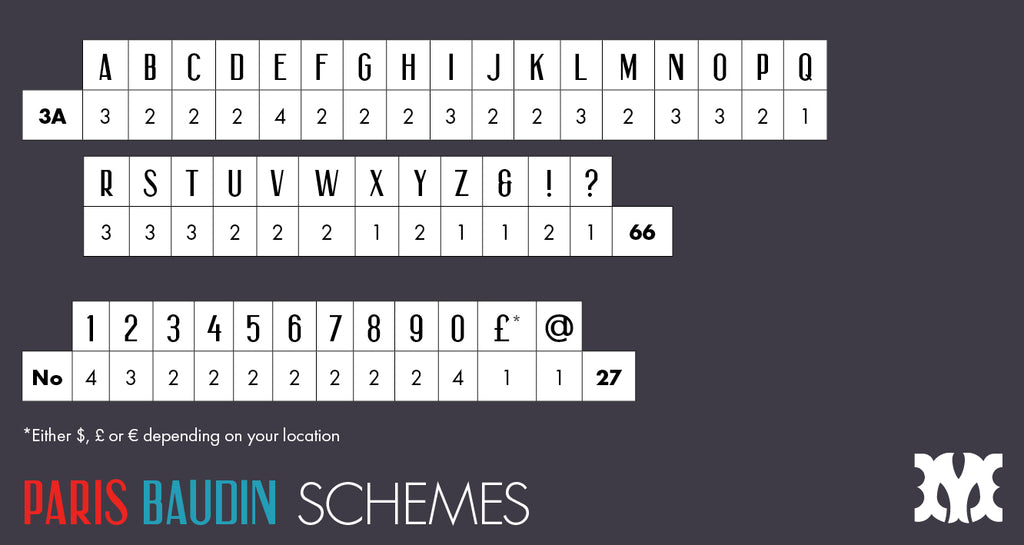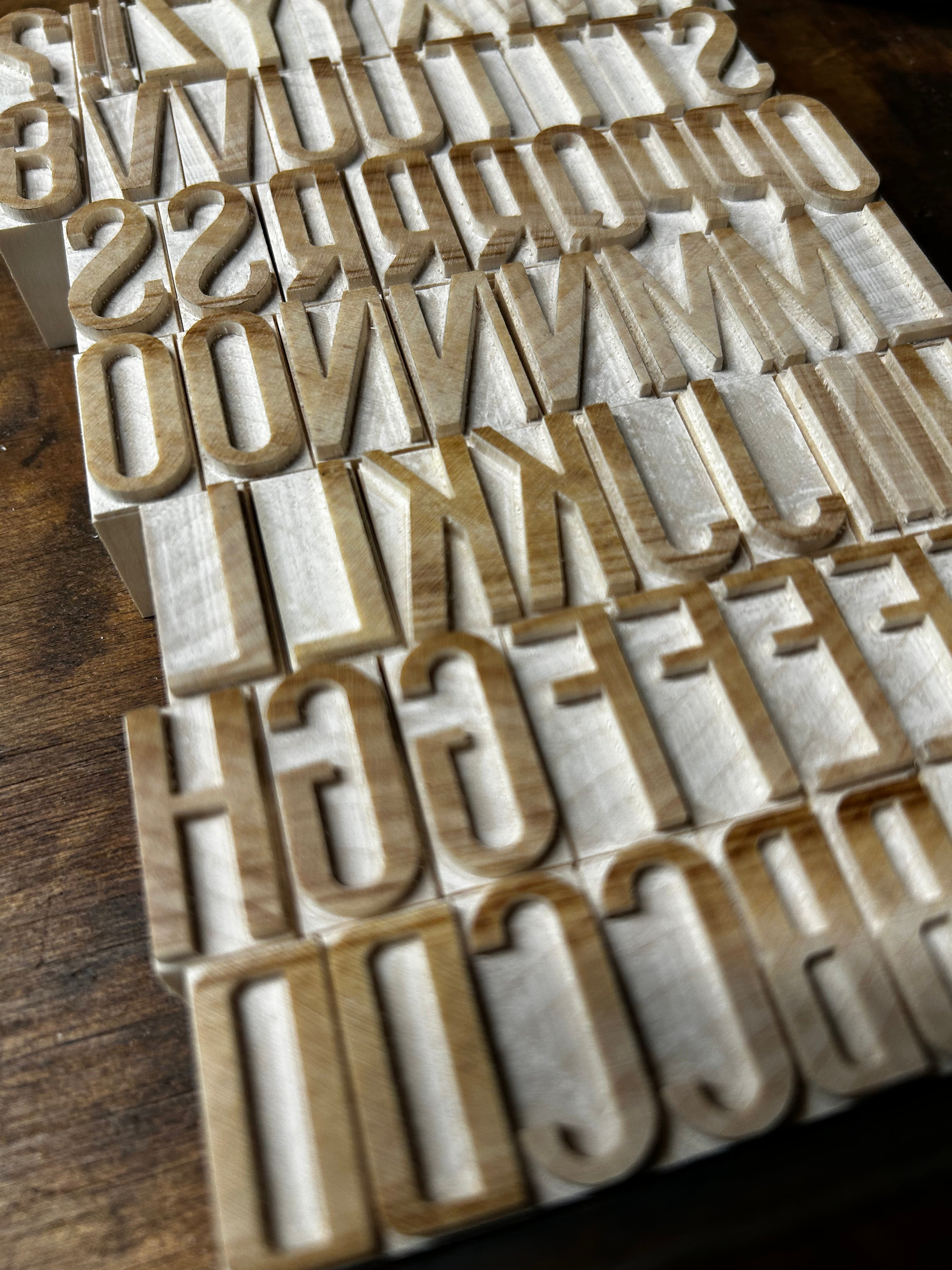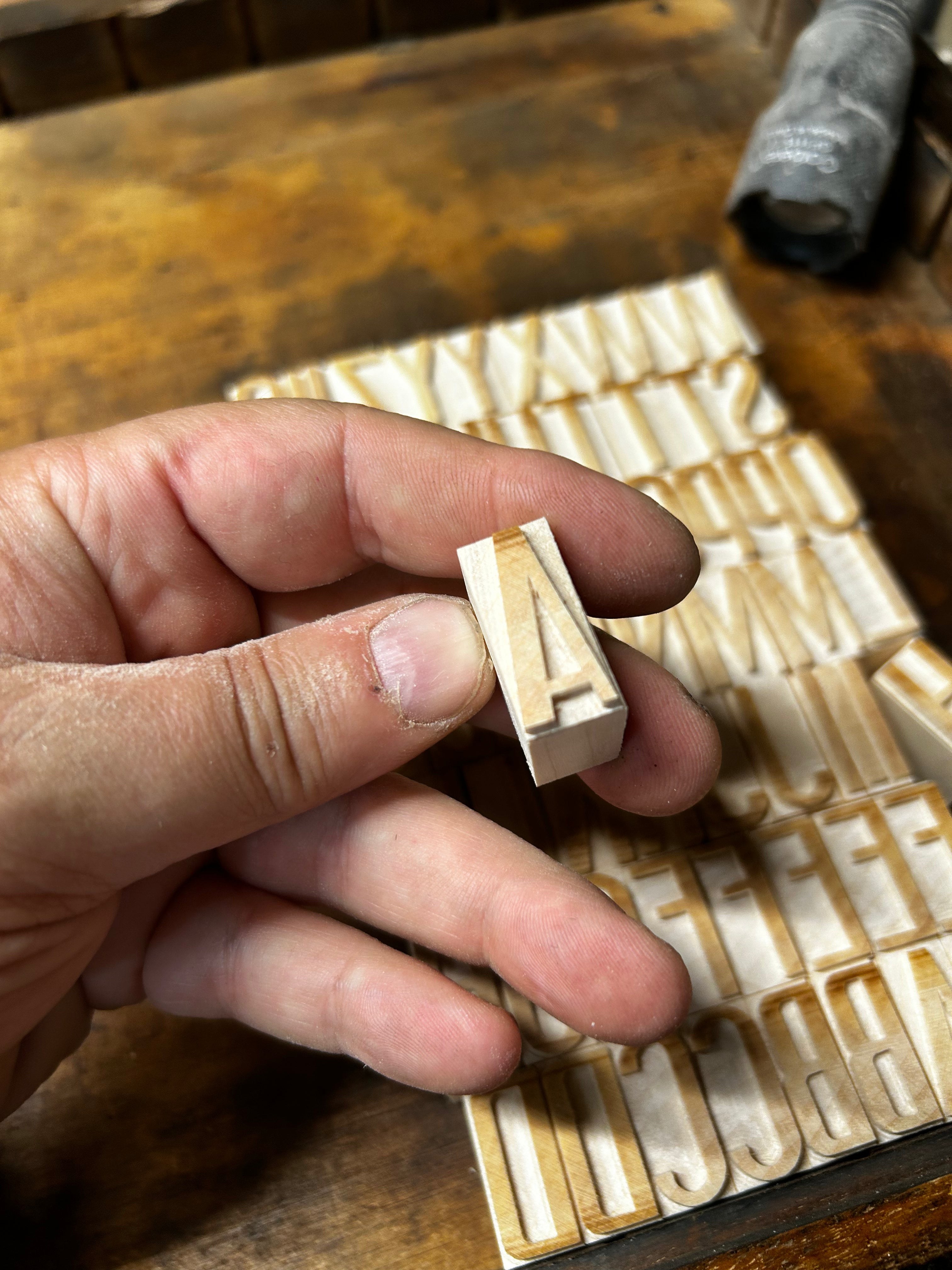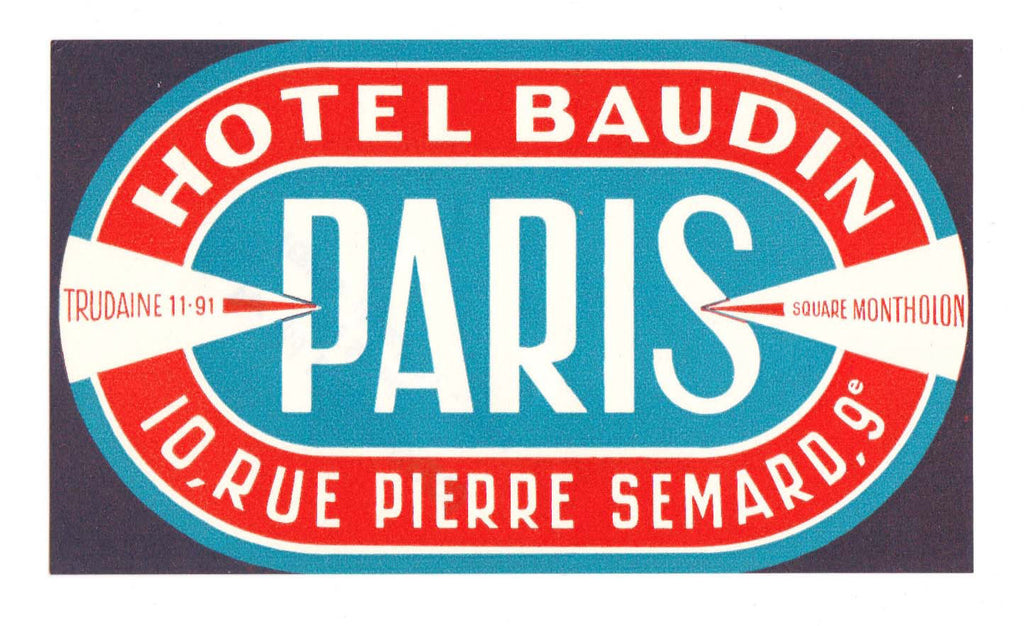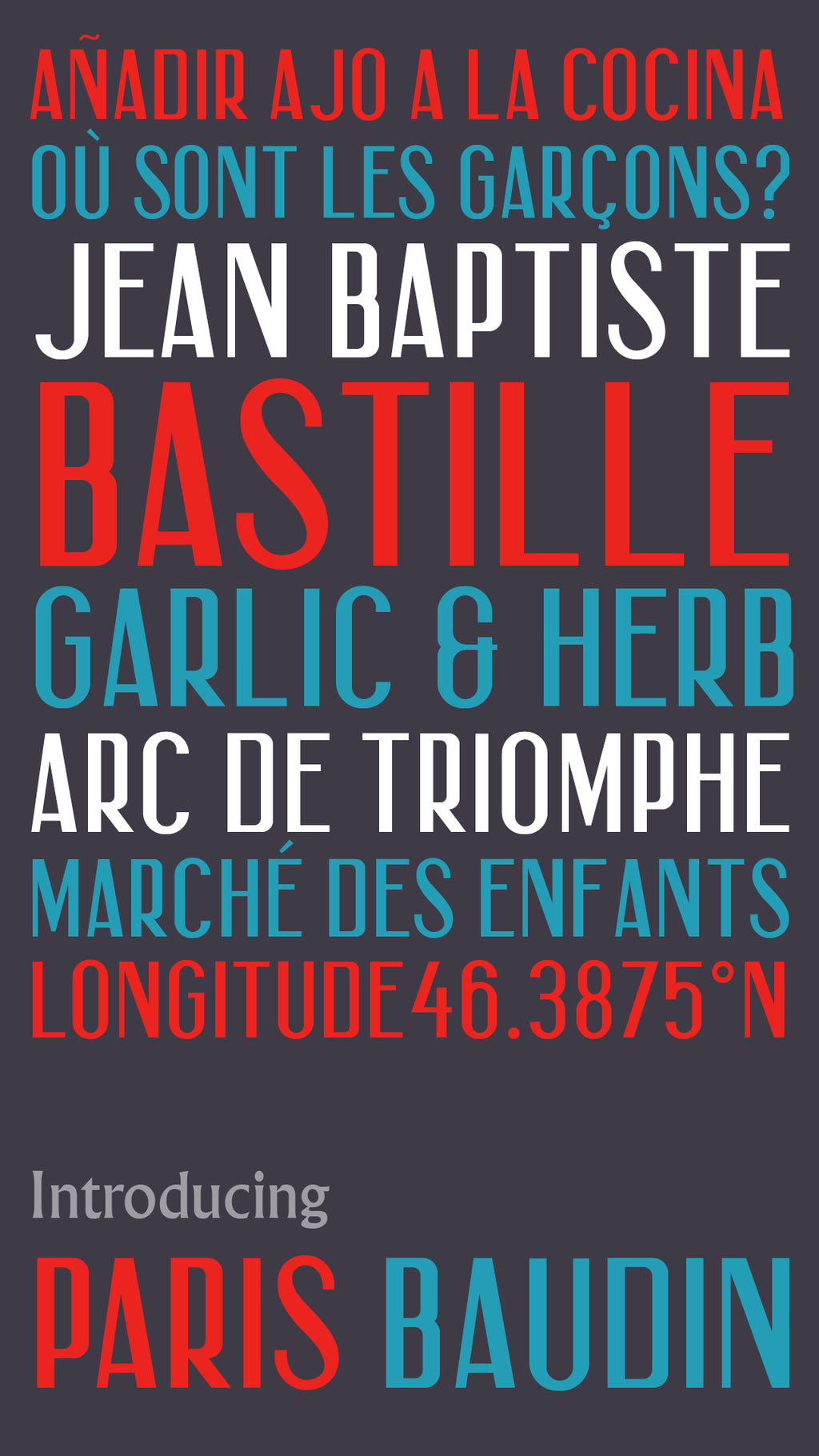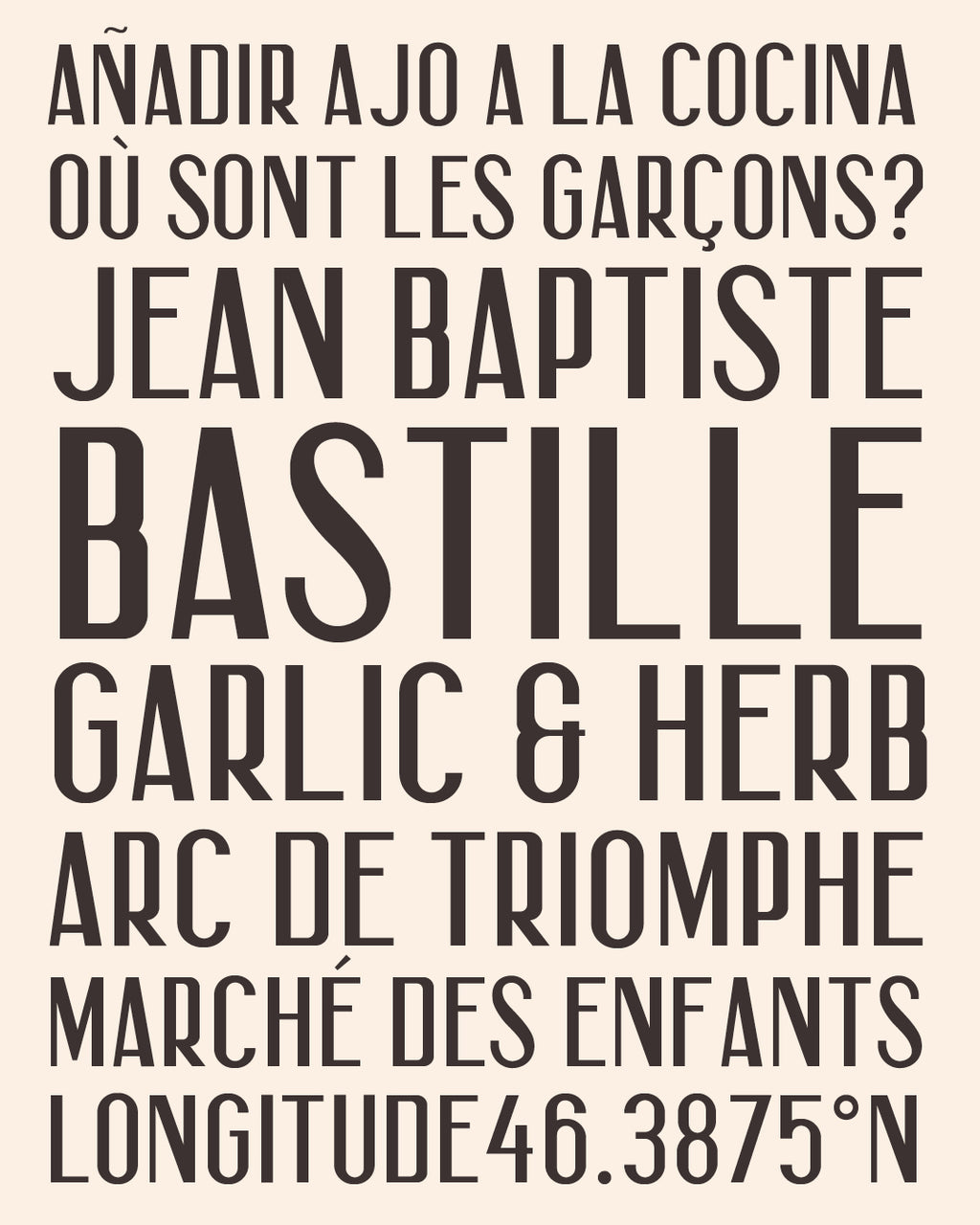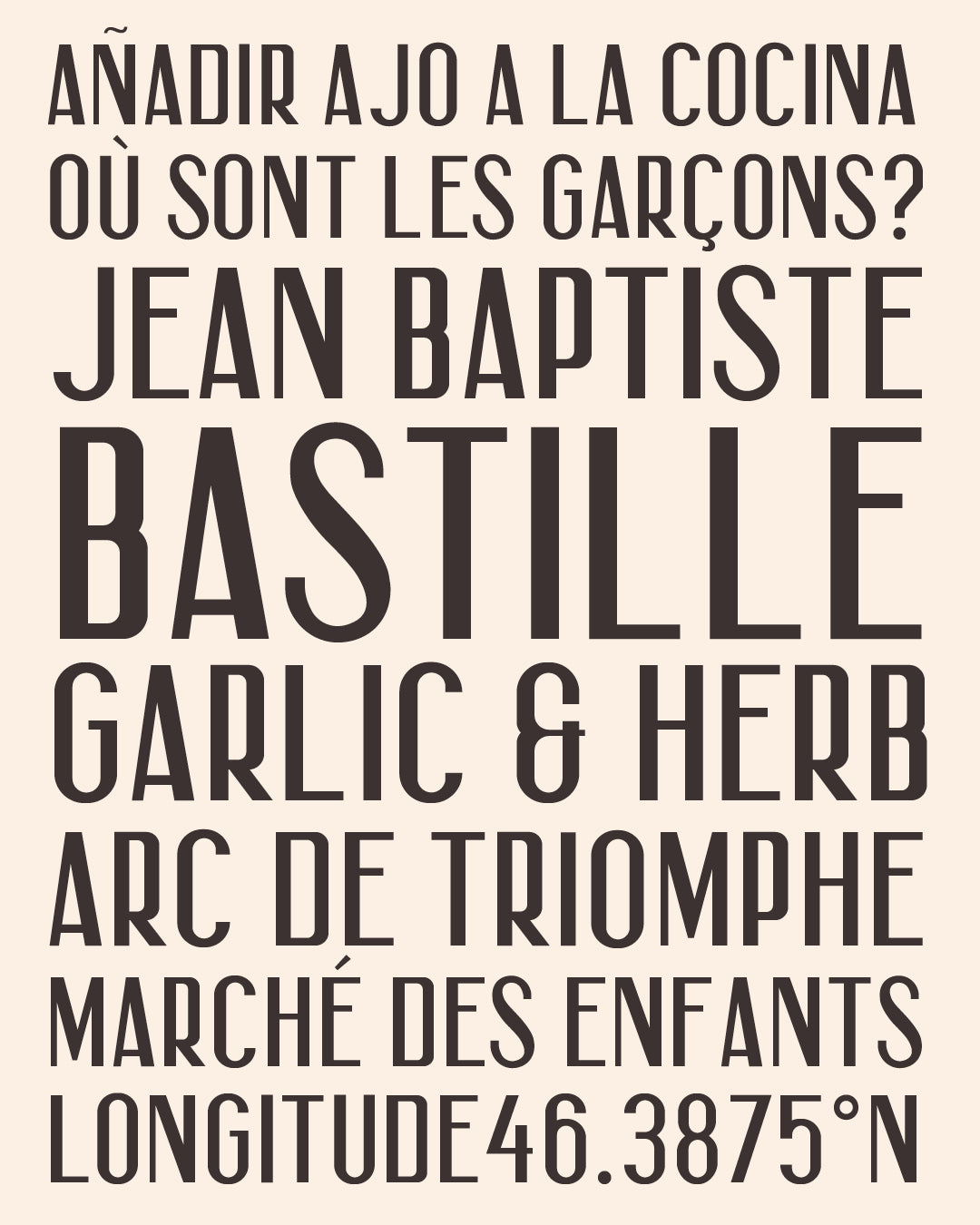
'Paris Baudin' letterpress woodtype typeface
Introducing 'Paris Baudin' - a typeface based on a vintage French luggage label from 1930.
6 line (25.4mm) cut from end grain English hardwood using a combination of modern CNC technology and traditional hand woodworking tools (including an original printers saw), made to English type-high (0.918in or 23.3mm) within plus or minus 0.1mm tolerance, sealed with shellac and hand finished with a traditional polished printing surface.
'Paris Baudin' has full western European language support so whether you’re printing in Norwegian, Dutch, French etc ‘Paris Baudin’ is for you! To make things easy when ordering please select a Languages set and I will get in touch to discuss which blocks you would like. Available in sets of 10 blocks.